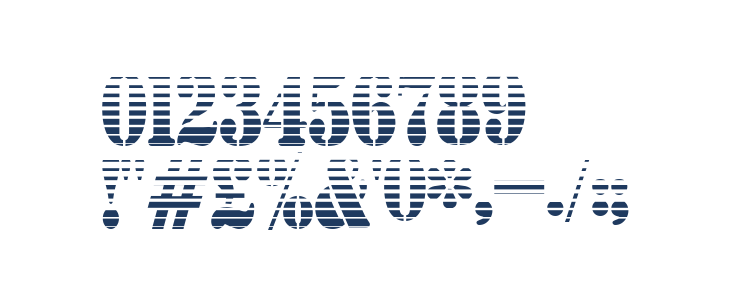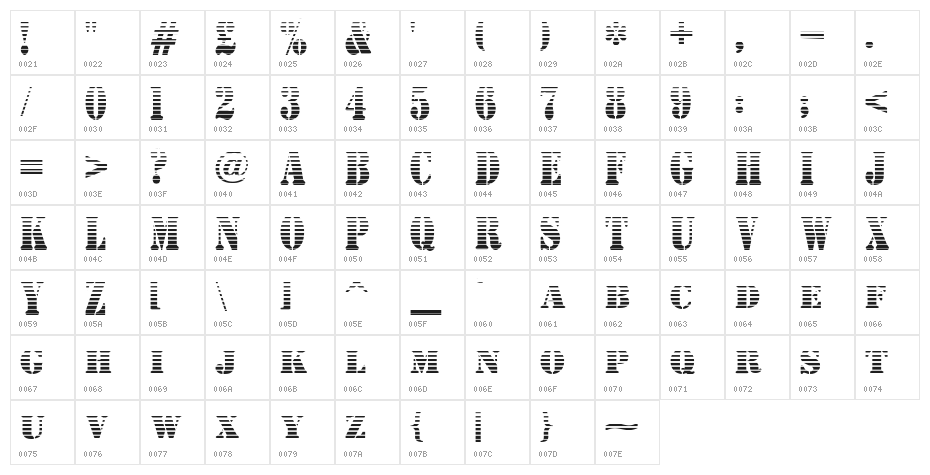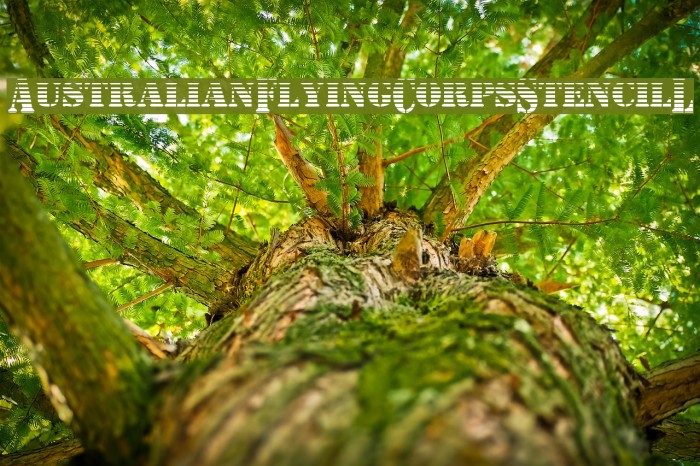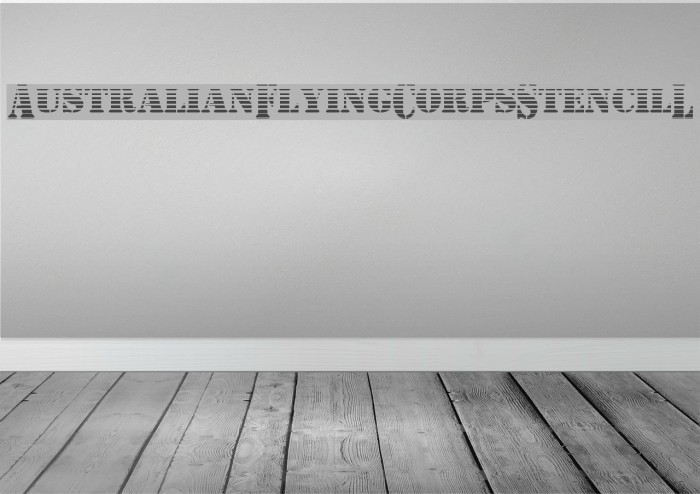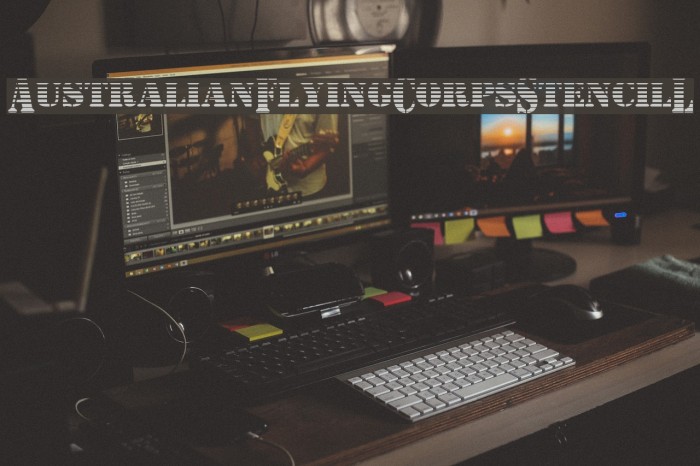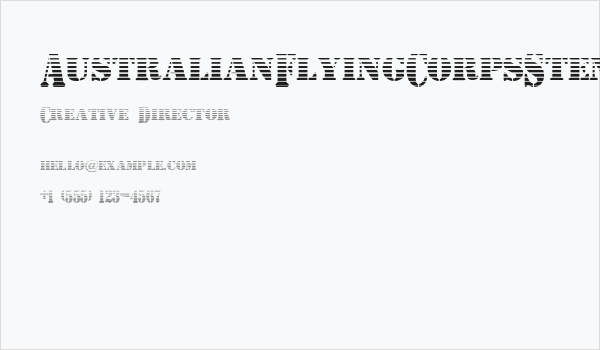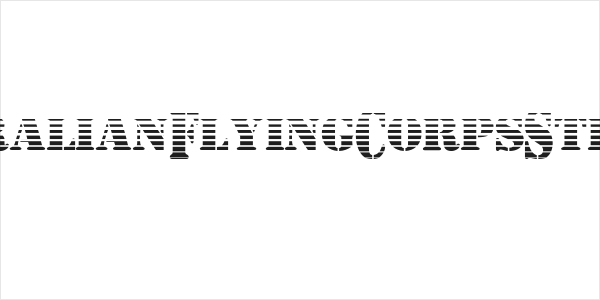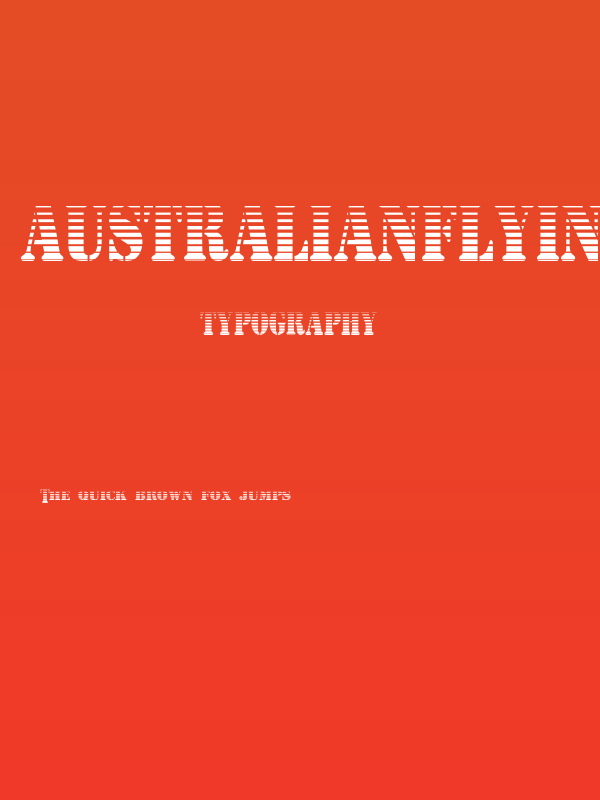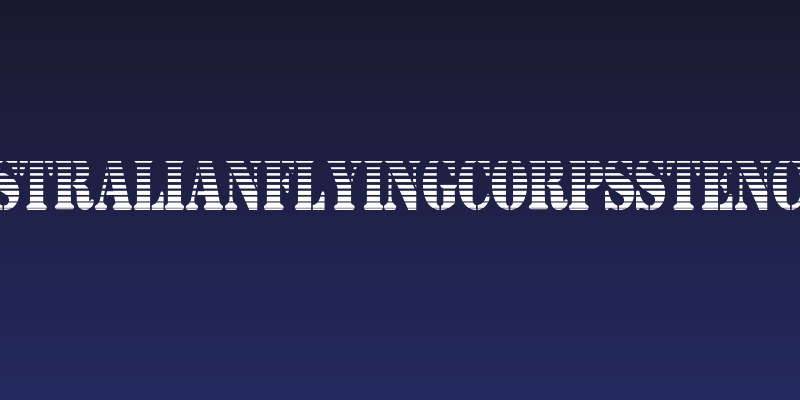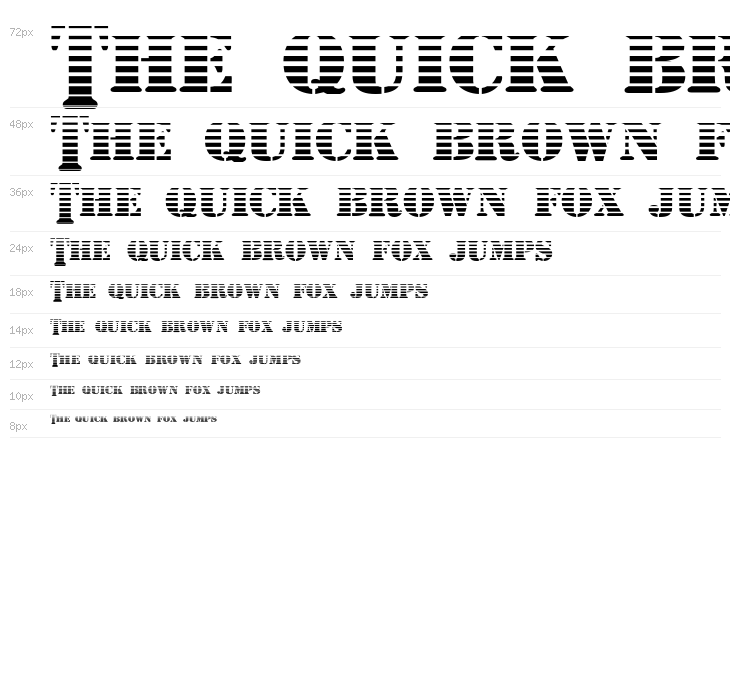
AustralianFlyingCorpsStencilL Font
AustralianFlyingCorpsStencilL Description
This font features a bold, stencil-like design with horizontal stripes cutting through each character, giving it a rugged and industrial appearance. The uppercase letters are prominent and evenly spaced, while the lowercase letters maintain the same distinctive style. The numerals and special characters are consistent with the overall aesthetic, making it suitable for designs that require a strong, impactful look. The font's unique style is reminiscent of military stencils, making it ideal for projects that need a vintage or utilitarian feel.
Perry Mason
| Overall Style | Industrial, Vintage |
| Proposed Projects | Ideal for military-themed designs, industrial branding, posters, and signage that require a bold statement. |
| Author | Perry Mason |